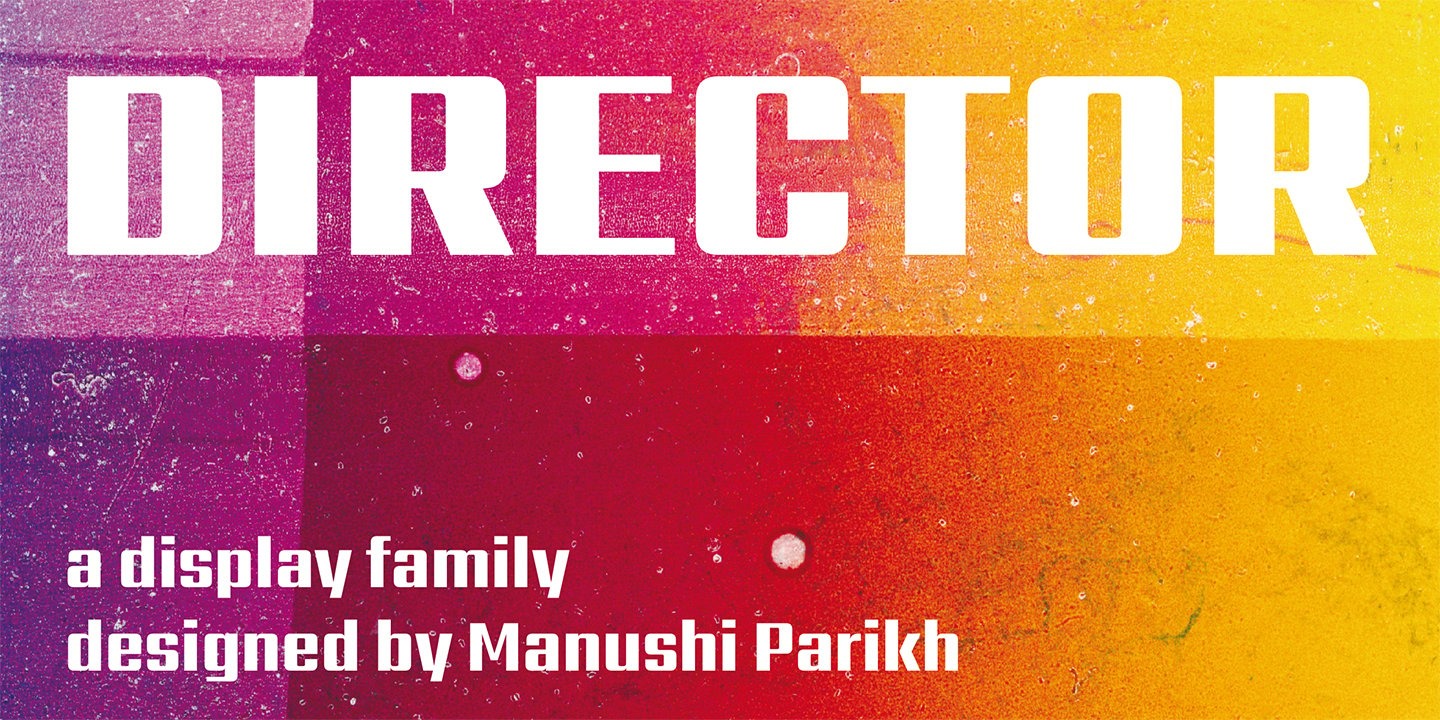
Director Font Family
Director Font Family is a stylish typeface that enhances visual appeal and works effortlessly in many design contexts.Director Font is a minimal display family from ITF for the Latin script. Across each of the family’s five fonts, all of the horizontal strokes share a consistent thickness, while the vertical strokes grow thicker with each new weight. So the Regular’s strokes are almost monolinear, but the Heavy weight has stroke contrast that is very severe. No matter how heavy you set Director, however, your text will retain a simple, squared appearance.